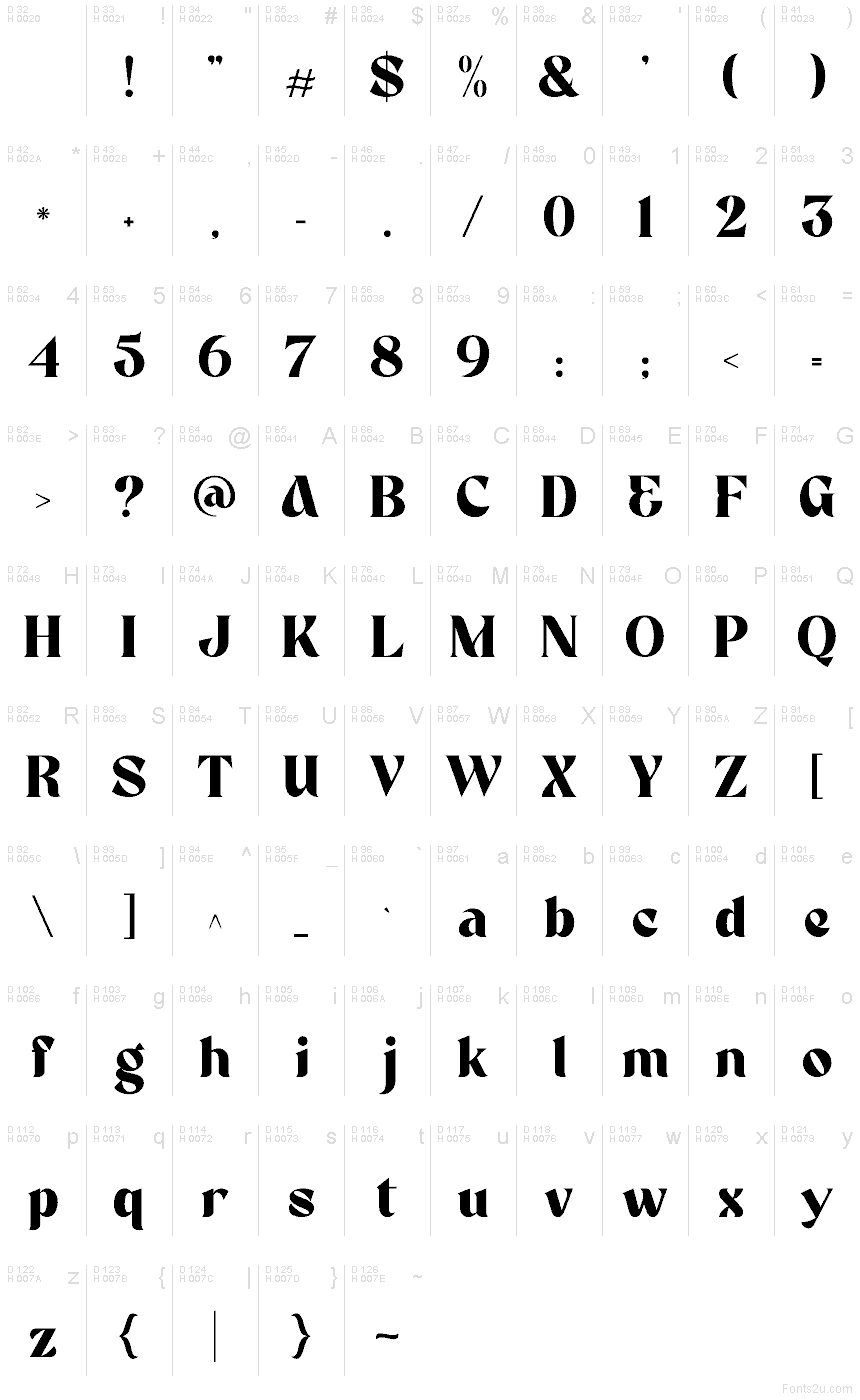
PAGE SERIF
Page Serif font has been crafted faithfully by Riyadh Rahman in a classic rendition with slight modern twists. Artistic flair merges beautifully with retro influences in this bold serif font which results in a creative all-purpose legible typeface. Assuredly versatile, this font would look strictly professional yet aesthetically pleasing in assorted projects.
Utilize the free serif font for cover designs made for fashion magazines, book or brochure covers on topics related to architecture, nature and culture. It’s also suitable for designs on shopping bags, clothes hang tags and restaurant menus. Use online for visually impressive websites or blog headers that capture viewers’ attention easily.